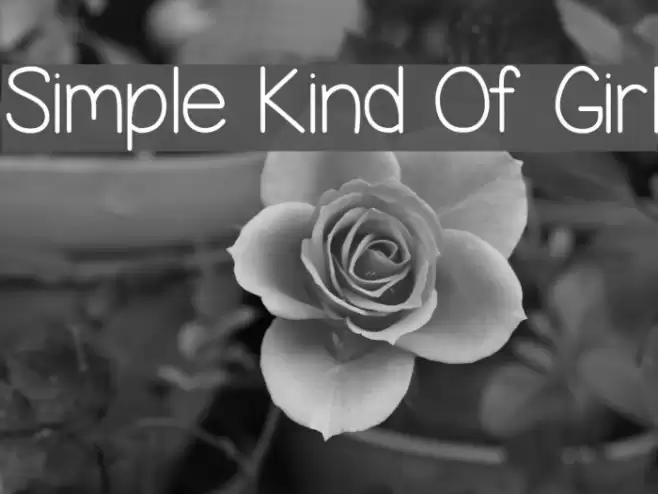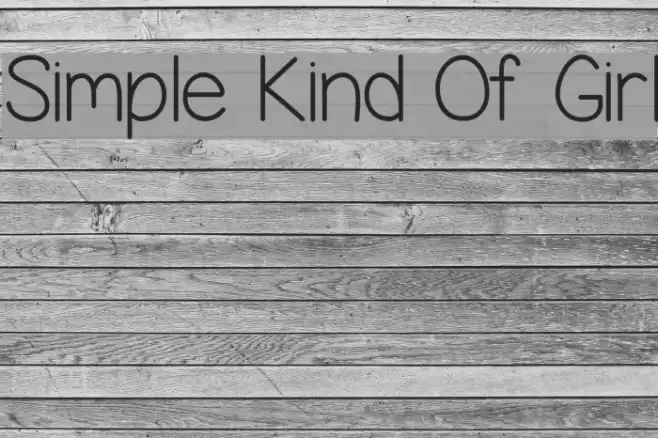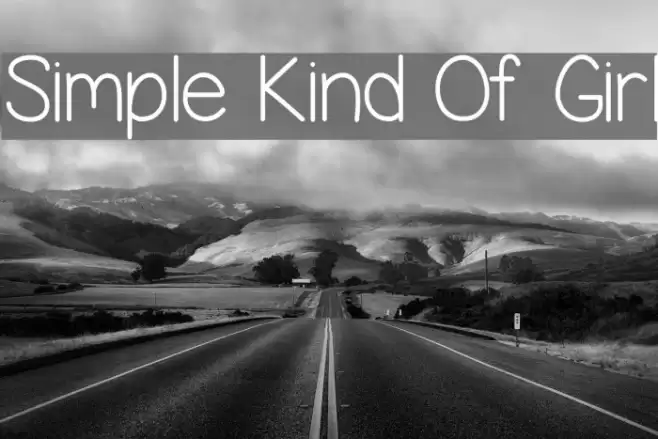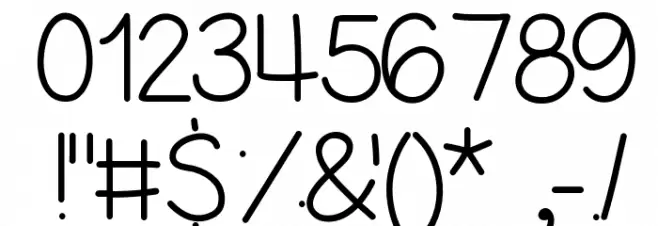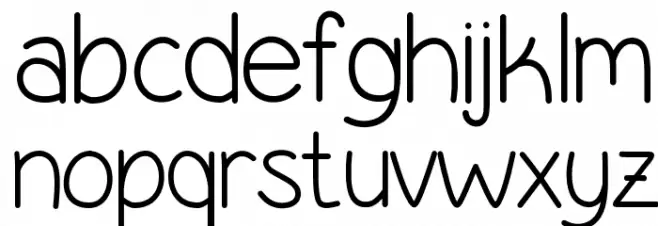
Simple Kind Of Girl
This font features a playful and casual style with rounded edges and a handwritten feel. The letters are evenly spaced, providing a clean and approachable appearance. The uppercase and lowercase characters maintain a consistent height, contributing to its legibility. Numbers and special characters are designed with the same rounded and friendly aesthetic, making them easily recognizable. The overall design is simple yet charming, suitable for projects that require a personal touch. Its informal style makes it ideal for creative and lighthearted applications.
A playful, rounded font with a handwritten feel and consistent spacing.
- Proposed Projects: Ideal for children's books, greeting cards, casual branding, and social media graphics.
- Overall Style: Casual
- Use Case: Headlines, Logos, Informal Text